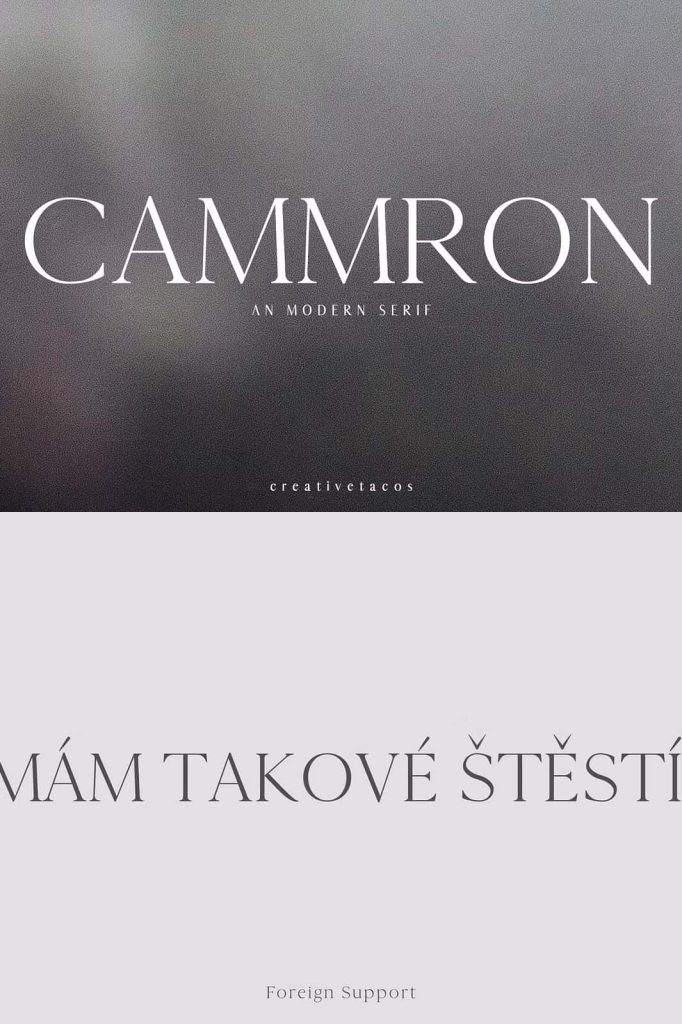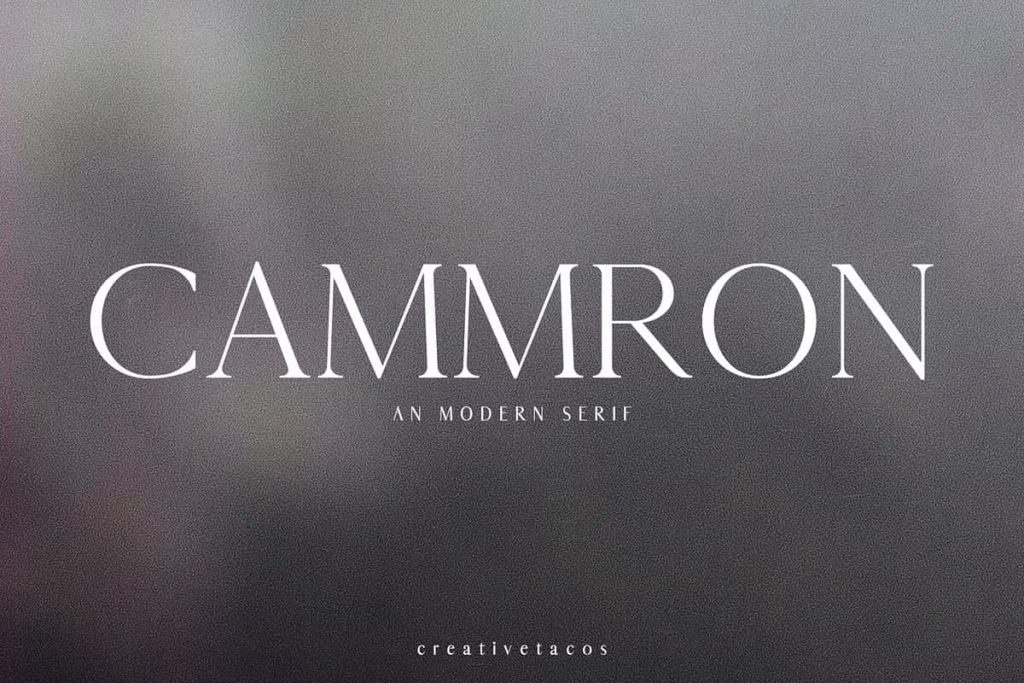
Cammron: A Modern Dashing Serif Font Family for Creative Design
Cammron is a modern serif font family created to bring confidence, elegance, and visual strength into contemporary typography. With its dashing personality and refined structure, Cammron delivers a powerful balance between classic serif sophistication and modern design clarity. This font family is designed for creatives who want their typography to feel bold, stylish, and adaptable across a wide range of projects.
The font includes all essential glyphs along with comprehensive non-English character support, making it suitable for international use. Every letterform is carefully crafted to maintain consistency, readability, and character, ensuring reliable performance in both print and digital environments.
Modern Serif Design with a Confident Personality
Cammron embraces the elegance of serif typography while pushing it forward with a modern attitude. The letterforms feel sharp and purposeful, yet refined enough to support professional design work. This balance gives the font a dashing appearance that stands out without overwhelming the layout.
The serif details add structure and sophistication, while the clean lines and balanced proportions keep the font fresh and contemporary. This combination allows Cammron to adapt easily to both traditional and modern design styles.
Refined Letterforms with Strong Visual Impact
Each character in the Cammron font family is designed to make an impression. The strokes feel deliberate, and the contrast between thick and thin elements adds depth and elegance. These details help the font command attention in headlines and titles while remaining clear and readable.
Designers can rely on Cammron to deliver impact without sacrificing refinement.
Complete Glyph Set with Multilingual Support
Cammron includes all basic glyphs required for professional typography, along with non-English characters that support multiple languages. This extensive coverage ensures that the font performs consistently across global design projects.
Special characters, accents, and diacritics are crafted with the same attention to detail as standard letterforms. This consistency helps maintain a cohesive look across multilingual content.
Designed for International Use
With its broad character support, Cammron is well suited for branding, publishing, and digital platforms that serve diverse audiences. Designers can use the font confidently in international campaigns without compromising style or readability.
This flexibility makes Cammron a practical choice for modern design systems.
Pairs Beautifully with Script and Handwritten Fonts
One of Cammron’s strengths lies in its ability to pair effortlessly with script, signature, or handwriting-style fonts. The structured serif forms create a strong contrast against flowing, expressive scripts, resulting in visually engaging typographic combinations.
This pairing potential makes Cammron especially useful in branding and editorial design, where hierarchy and contrast play a crucial role. Designers can use Cammron for headlines and pair it with a handwritten font for accents or secondary text.
Create Dynamic and Balanced Layouts
The clean and confident nature of Cammron allows it to anchor a design while other fonts add personality or softness. This balance helps create layouts that feel intentional and well-organized.
Whether used alone or in combination, Cammron maintains its presence and clarity.
Ideal for Headlines, Logos, and Branding
Cammron excels in headline and title applications where strong typography is essential. Its dashing serif style draws attention and communicates professionalism, making it ideal for magazines, advertisements, posters, and editorial layouts.
The font also performs exceptionally well in logo design and branding projects. Its distinctive character helps establish memorable visual identities that feel modern and authoritative.
Versatile Across Print and Digital Media
Cammron adapts smoothly to a wide variety of creative uses. It works beautifully in web layouts, invitations, packaging design, book covers, and promotional materials. The font retains its clarity across different sizes and resolutions.
This versatility allows designers to maintain consistent branding across multiple platforms and formats.
A Serif Font Family Built for Creative Freedom
Cammron offers a complete typographic solution for designers seeking a modern serif font with personality and flexibility. Its balanced design, multilingual support, and strong pairing potential make it suitable for nearly any creative project.
From branding and advertising to publishing and digital design, Cammron empowers designers to create work that feels confident, refined, and visually compelling. It stands as a dependable serif font family built to support creative freedom and professional results.